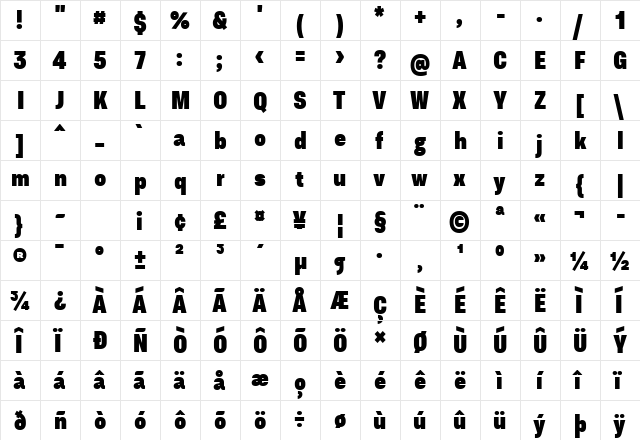
Asket Condensed ExtraBold
| Foundry | Glenjan |
| Designer | Glenjan |
Design Context for Asket Condensed Typeface
Asket Condensed is a composed and adaptable typeface that performs quietly and consistently across a wide range of design contexts. Its bold stroke weight gives it real presence on the page. Its narrow stance lets it pack a punch even in space-constrained designs.
Pro Tip: Pair Asket Condensed with a font of contrasting weight or personality to build a more expressive typographic hierarchy.